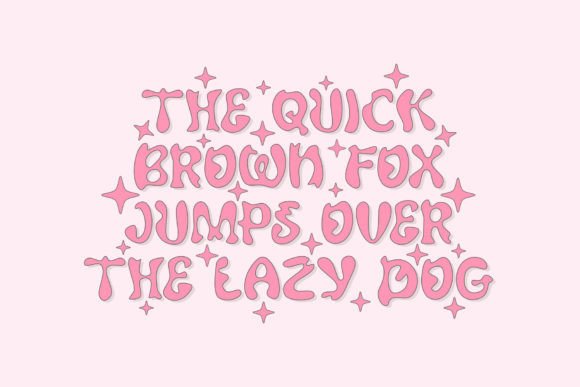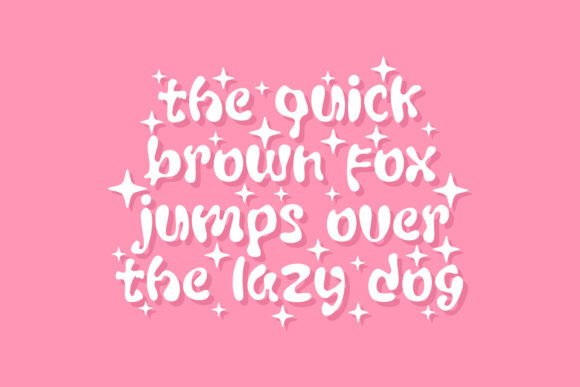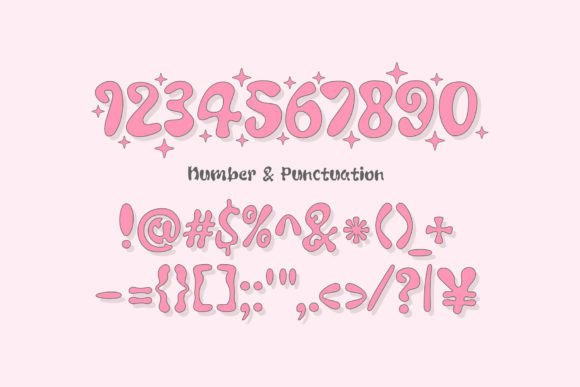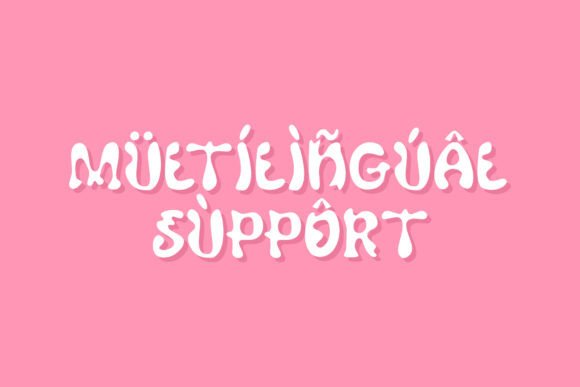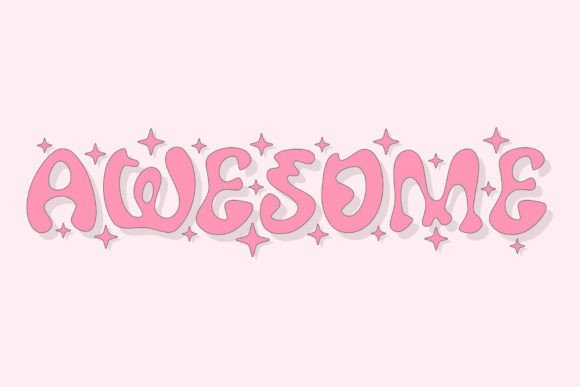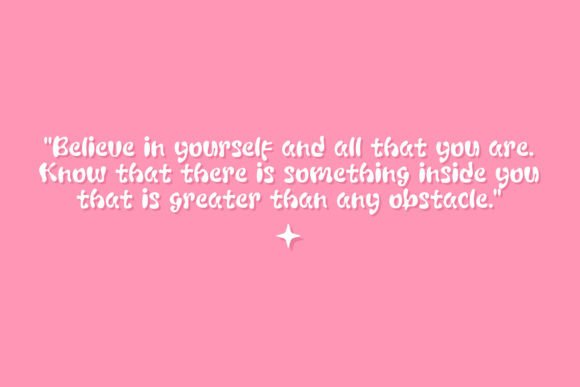
Unlocking the Magic of Whimsical Typography
Imagine you’re brainstorming ideas for a new client project, and suddenly, a burst of creativity strikes – the perfect font pops into your mind, instantly elevating the design from bland to grand. For designers, finding that elusive font can be a game-changer. Enter the Boosco Aurora Font, a vibrant and lively display font that radiates fun and energy.
Perfect for cheerful designs, party invitations, and anything that needs a splash of whimsy, Boosco Aurora adds a delightful touch to any project. With its bubbly shapes and playful curves, this font captures the essence of joy and excitement. Whether you’re working on a children’s book, a festive advertisement, or a wedding invitation, the Boosco Aurora Font is sure to bring a smile to your face and a dash of personality to your design.
Boosco Aurora Font Key Features
- Font Family: Boosco Aurora
- Size: Includes 6 font weights (Thin, Light, Regular, Medium, Bold, Black)
- Resolution: Optimized for high-resolution displays (up to 300 DPI)
- Unique Characteristics: Includes a wide range of ligatures, swashes, and alternates to create unique and creative typography
Boosco Aurora Font Review
Overall, I think Boosco Aurora Font is a great addition to any designer’s toolkit. ✨ It has a unique, hand-drawn feel that adds a touch of personality to any project. The font’s curves and flourishes make it perfect for titles, headings, and other text elements where you want to make a statement.
- Unique, hand-drawn feel that adds a touch of personality to any project.
- Perfect for titles, headings, and other text elements where you want to make a statement.
- Good legibility, even at smaller font sizes.
However, there are a few limitations to consider. ⚠️ The font may not be suitable for body text, as it can be a bit too ornate and distracting. Additionally, the font’s lack of a true italic or bold variant may limit its versatility in certain situations.
Despite these limitations, I think Boosco Aurora Font is a great choice for designers looking to add some personality to their projects. With a little creativity and experimentation, you can use this font to create some truly unique and eye-catching designs.
Practical Application Guide for Boosco Aurora Font
To get the most out of the Boosco Aurora Font, use it for headings and titles to add a touch of elegance to your design. You can also use it for body text to create a cohesive look.
The Boosco Aurora Font is commonly used in:
- Book covers and interior design
Carolyna Pro Font is a modern, elegant script font suitable for a wide range of applications, including logos, business cards, and advertising materials. It has a more sophisticated and refined feel compared to Boosco Aurora Font, making it ideal for high-end branding and marketing campaigns.
Alex Brush Font is a beautiful, handwritten script font that’s perfect for creating a personal and emotional connection with your audience. It’s ideal for use in social media graphics, blog posts, and other digital content. Alex Brush Font has a more relaxed and casual feel compared to Boosco Aurora Font, making it suitable for a wide range of creative projects.
Dancing Script Font is a beautiful, elegant script font that’s perfect for creating a fun and playful atmosphere. It’s ideal for use in advertising materials, social media graphics, and other digital content. Dancing Script Font has a more dynamic and energetic feel compared to Boosco Aurora Font, making it suitable for projects that require a bold and eye-catching look.
3 Creative Project Ideas Using Boosco Aurora Font
Project 1: Magical Galaxy Book Cover
Create a captivating book cover design using Boosco Aurora Font. This font’s whimsical and dreamy feel is perfect for a fantasy or sci-fi novel.
How do I access the advanced font features of the Boosco Aurora Font?
The Boosco Aurora Font includes advanced features such as ligatures, swashes, and contextual alternates. To access these features, you’ll need to use a font editor or a design application that supports OpenType fonts, such as Adobe Illustrator or InDesign. You can also use a font preview tool to explore the font’s features and glyphs.